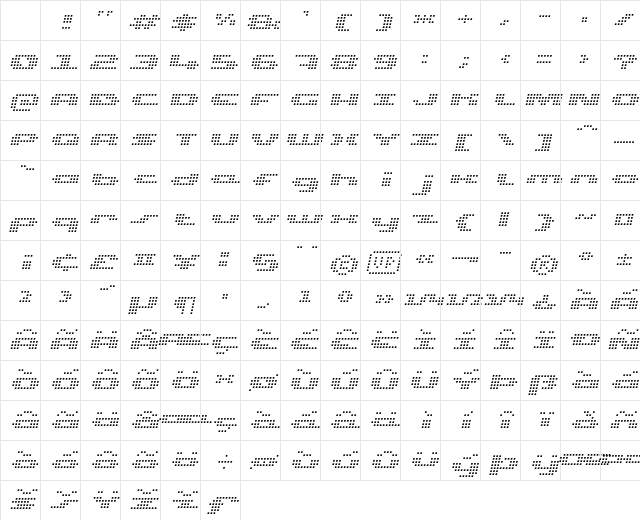
Complete UP Tiny lcd four 8 Light Italic glyph index. Displaying only characters natively supported by UP Tiny lcd four 8 Light Italic font.
UP Tiny lcd four 8 is a composed and adaptable typeface that performs quietly and consistently across a wide range of design contexts. The slanted form adds forward momentum and visual energy. Its slender proportions lend an understated elegance to any composition.
Pro Tip: Use UP Tiny lcd four 8 for emphasis, pull quotes, and subheadings where its slanted energy can add rhythm to the layout.